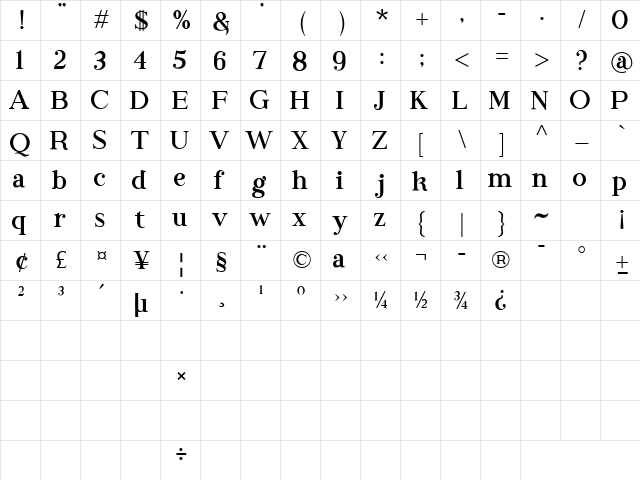
EMPHATIC Regular
Design Context for EMPHATIC Typeface
EMPHATIC takes a measured approach to typography — its balanced proportions and neutral character make it a reliable workhorse for both digital and print work.
Pro Tip: Use EMPHATIC in both headline and body roles to test its range before committing to a single application.